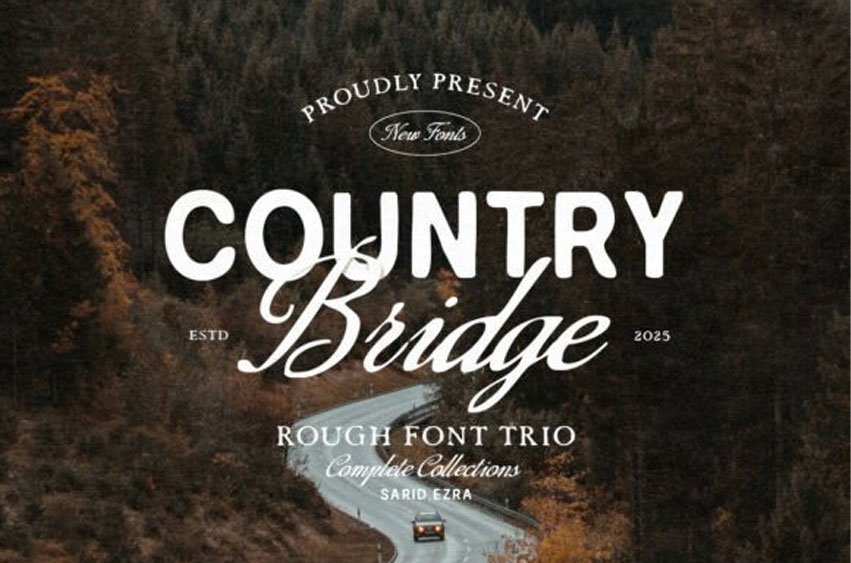
Country Bridge Trio Font is a versatile font collection that brings together three font styles that complement each other. This trio supports multilingual characters, numbers, and symbols, making it practical as well as beautiful.
Perfect for logotypes, branding, wedding invitations, and quotes, Country Bridge saves you the trouble of font pairing — the three styles are designed to work seamlessly together.
If you love our Royale Couture font, this is the rough version that you can use if you need the handmade and natural look!